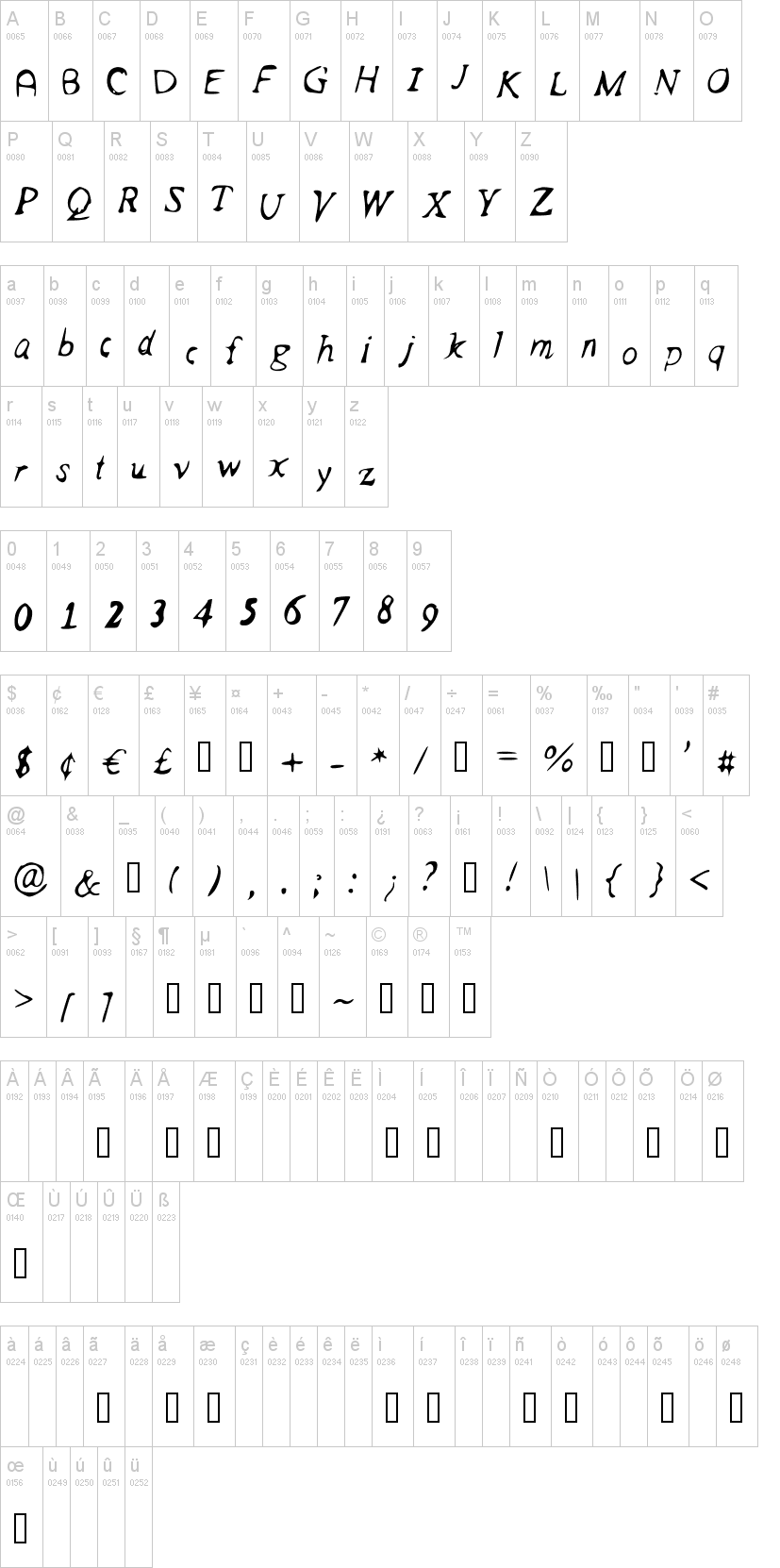
Шрифт Pancho
This is a font to be used for a scary title if you just want to be fun will maybe it can can be used to be different and not have the same font as someone else.